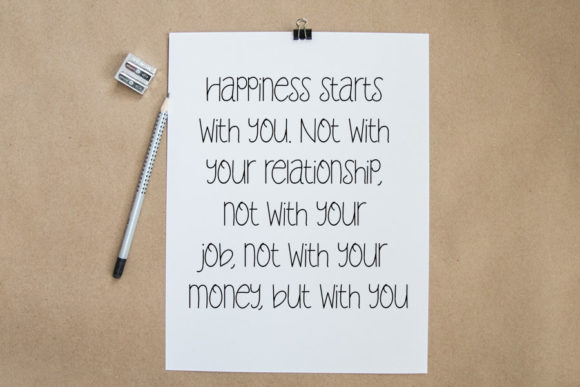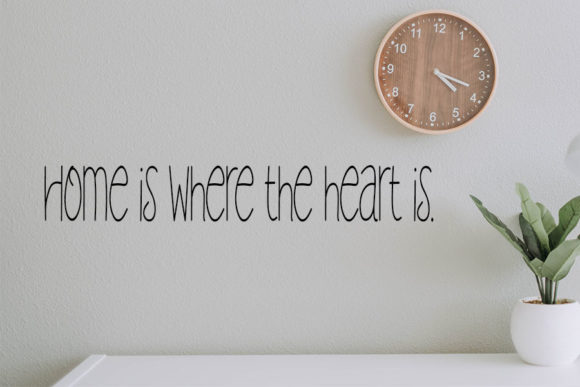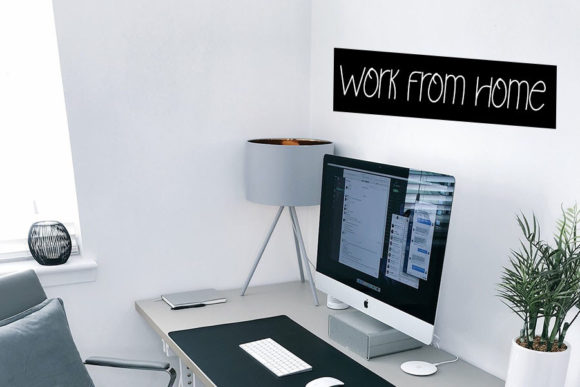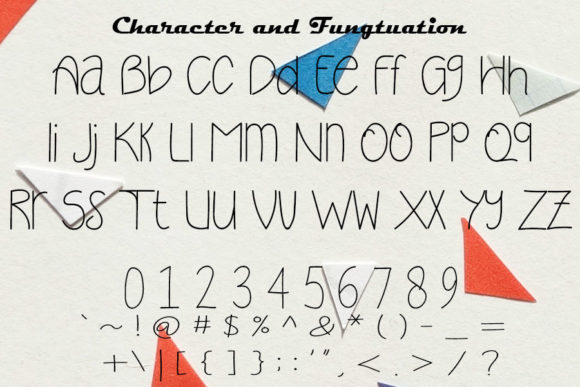
About Stylish and Enjoy Font
Stylish And Enjoy is an elegant and dainty handwritten font that features sweet and delicate swashes. This original look will appeal to a wide range of crafty ideas, from letterheads and titles, to stationery.